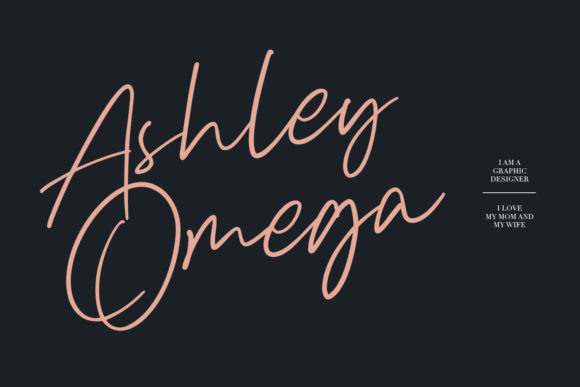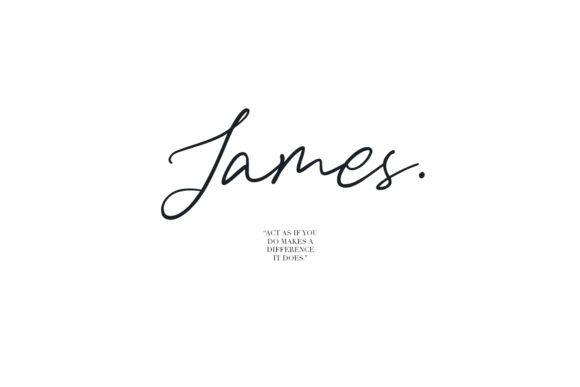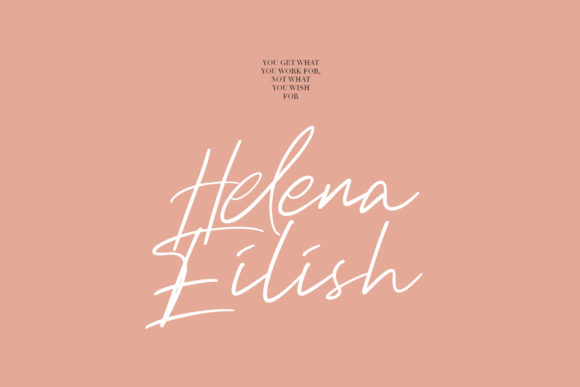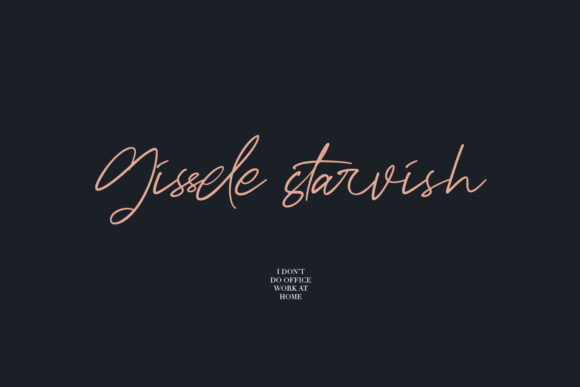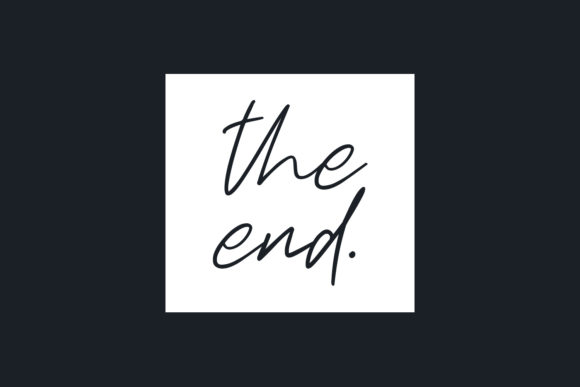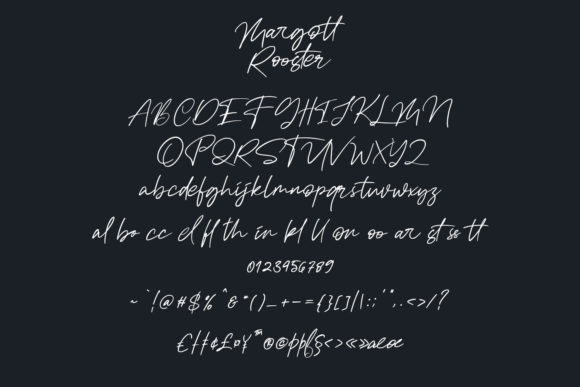
Introduction to Margott Rooster Font
Margott Rooster feels equally charming and elegant.
It features an incredibly classic style, while still keeping a friendly feel Margott Rooster is the perfect font for making original and outstanding designs.
Key Features of Margott Rooster Font
Why Choose Margott Rooster Font?
Margott Rooster Font offers exceptional quality and versatility, making it a valuable addition to your design toolkit. Whether you’re creating for personal projects or commercial use, Margott Rooster Font delivers professional results.